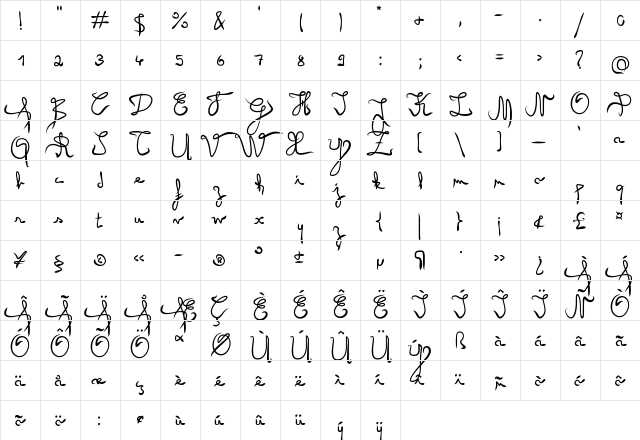
Angel Regular
| Designer | Rέi Godefroid (R-G Alpha) |
Design Context for Angel Typeface
Angel is a composed and adaptable typeface that performs quietly and consistently across a wide range of design contexts.